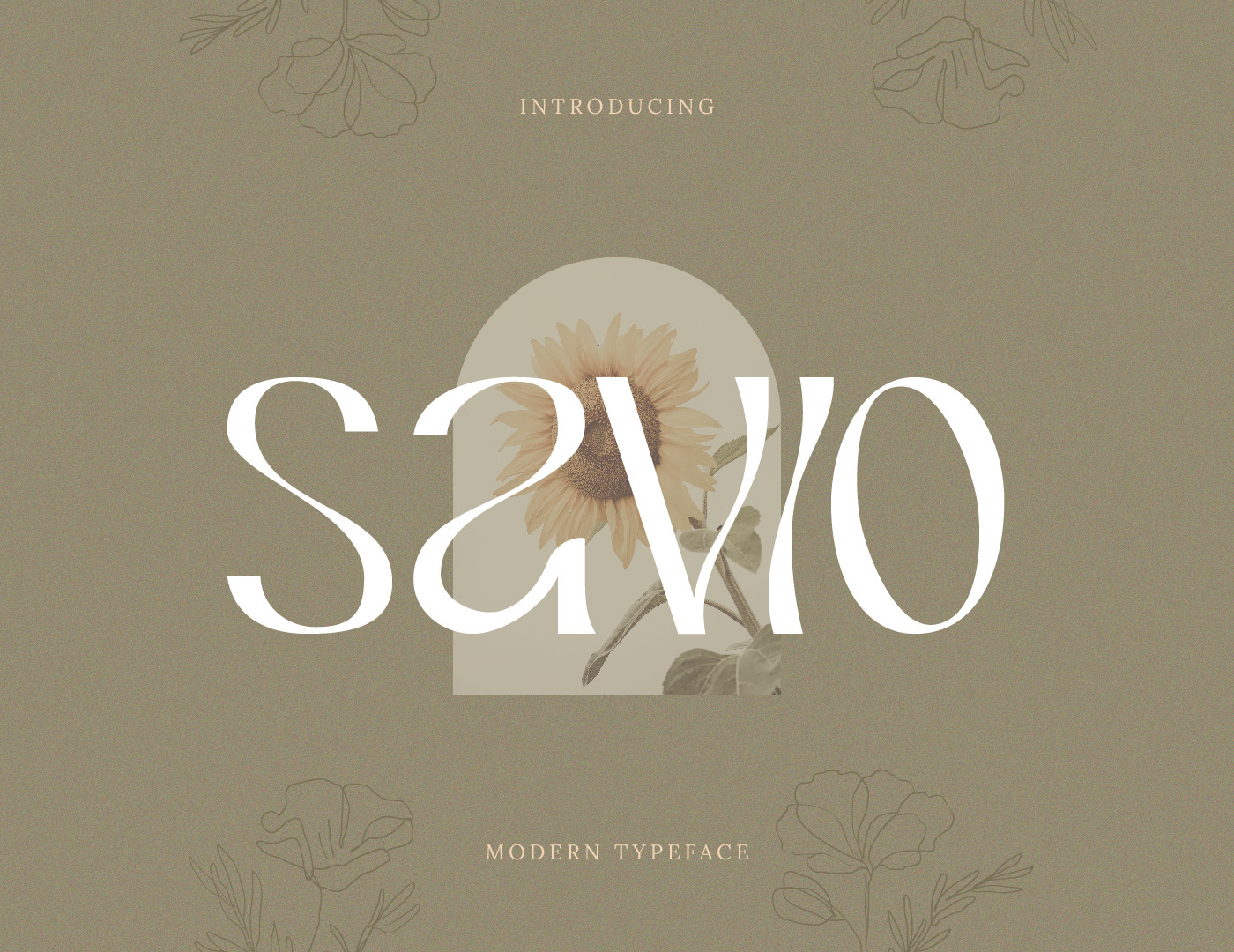
Savio Display Font
Savio Display Font a modern-style display font that create stunning logos, branding projects, posts, wedding invitations, magazines, and much more. Wavy and stunning, "Savio" is bringing us nasty and sensuous vibes. Delicate and fleshly is your design will look be.